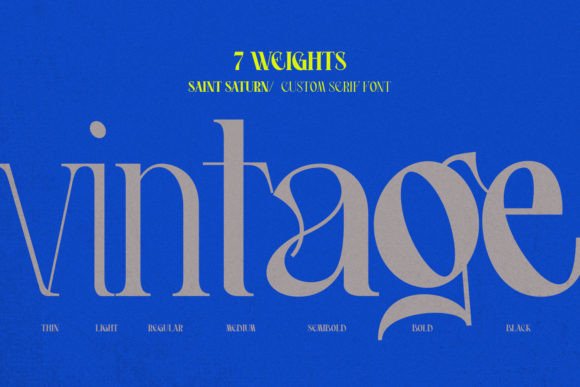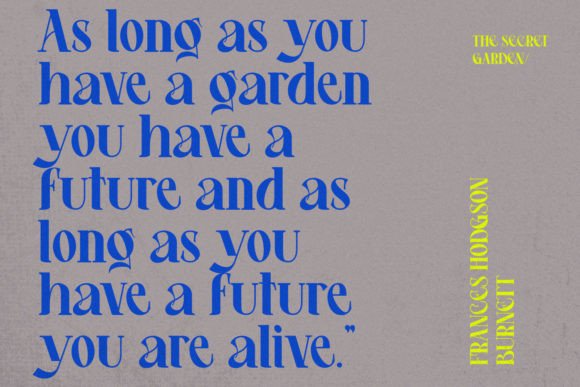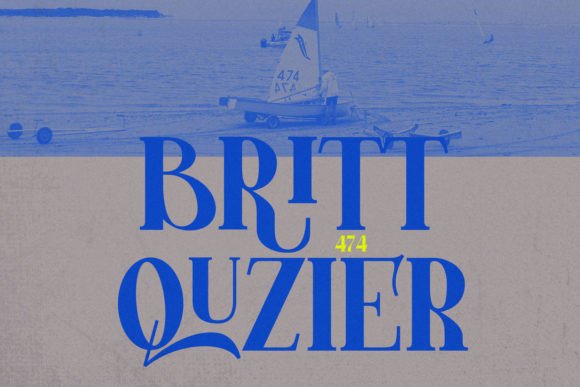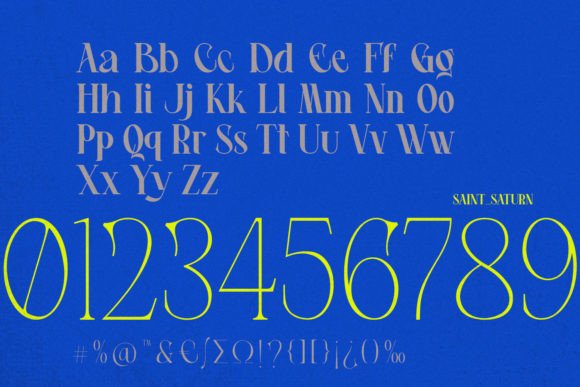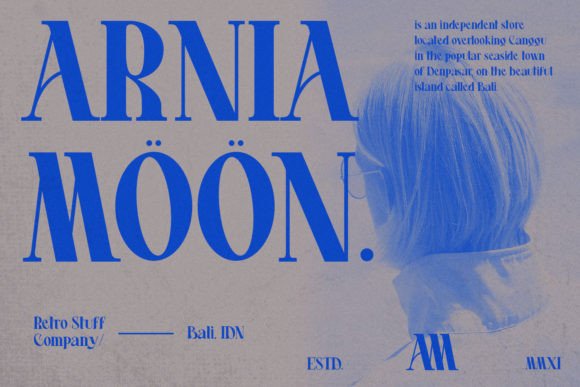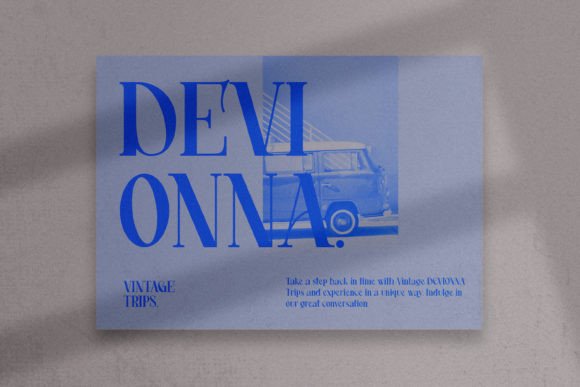
Introduction to Saint Saturn Font
As a designer, there’s nothing quite like the thrill of stumbling upon a new font that sparks creativity and sets your project ablaze. You’re working on a high-quality logo for a client, and you need a font that exudes style and sophistication. Or perhaps you’re crafting a website with a transparent background, and you require a font that complements the minimalist aesthetic.
That’s where the Saint Saturn Font comes in – a retro serif font that’s sure to elevate your creative project to the next level. With its unique blend of vintage charm and modern flair, this font is a valuable addition to any designer’s toolkit. Whether you’re working on a free download or a commercial project, the Saint Saturn Font is an essential design resource that’s worth exploring.
Key Features of Saint Saturn Font
- High-quality, unique design suitable for creative projects and modern designs.
- Features a transparent background, making it ideal for use on images, graphics, and other design elements.
- Designed with a modern aesthetic, making it a great addition to any design project.
Honest Review: Saint Saturn Font
As a designer, I’m always on the lookout for high-quality design resources that can elevate my creative projects. The Saint Saturn Font caught my attention, and I’m excited to share my thoughts on it.
Here are the things that work well for me:
- ✨ Beautiful, modern design: The font’s sleek and minimalist aesthetic makes it perfect for a wide range of creative projects.
- ✨ Transparent background: This feature is a game-changer for designers who need to work with complex backgrounds.
While the Saint Saturn Font is a great resource, there are a few limitations to consider:
- ⚠️ Limited font styles: The font only comes in a few styles, which may limit its versatility for some designers.
- ⚠️ Not ideal for text-heavy projects: The font’s minimalist design may not be the best choice for projects that require a lot of text.
Overall, I’m impressed with the Saint Saturn Font. Its high-quality design and transparent background make it a valuable resource for designers working on creative projects. While it may have some limitations, I think it’s definitely worth checking out.
Tips for Getting the Most Out of Saint Saturn Font
For optimal use, pair Saint Saturn Font with a transparent background to create a clean and modern design. This font is ideal for creative projects requiring a high-quality, free design resource.
Saint Saturn Font is suitable for a variety of design projects, including logos, business cards, and marketing materials. Its clean and modern aesthetic makes it an excellent choice for any creative project requiring a professional touch.